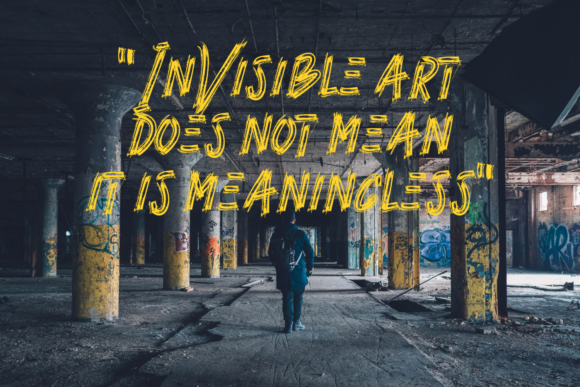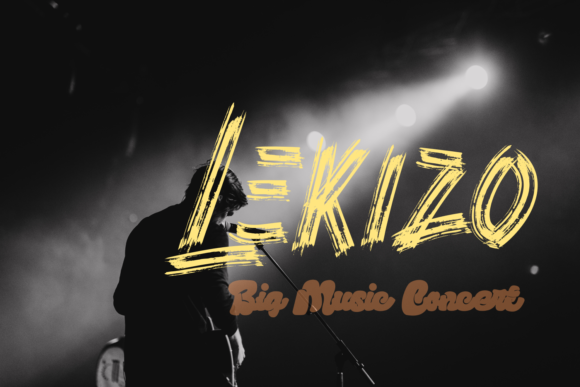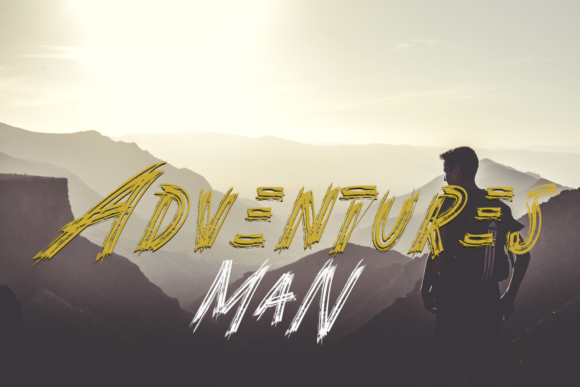
Introduction to Mazdero Font
Do you remember the thrill of finally finding the perfect font for your creative project? It’s that moment when everything falls into place, and your design comes to life. For designers, discovering a high-quality font can be a game-changer, elevating their work from good to great. If you’re looking for a font that will make your urban designs stand out, look no further than the Mazdero Font.
With its rough, textured design and dramatic flair, the Mazdero Font is a design resource that’s sure to impress. Whether you’re working on a free download project or a paid commission, this font is sure to add a touch of sophistication and style to your work. And with its transparent background, it’s easy to integrate into any design.
Key Features of Mazdero Font
- Unique and stylish font with a transparent background, ideal for various design applications.
- Perfect for use in logos, branding materials, and other design elements where a modern and sleek look is required.
Honest Review: Mazdero Font
I recently stumbled upon the Mazdero Font and I must say, it’s a game-changer for any creative project. The font is a free download, making it an excellent design resource for anyone looking to add some flair to their work.
Here are some things that work well about the Mazdero Font:
- High quality: The font is crisp and clean, making it perfect for digital designs.
- Transparent background: This allows for easy layering and customization.
- Unique style: The font has a distinctive look that sets it apart from more generic fonts.
Of course, no font is perfect, and there are a few limitations to consider:
- ⚠️ Limited character set: The font may not include all the characters you need for certain languages or scripts.
- ⚠️ Not suitable for print: The font may not be suitable for print projects due to its digital origins.
Overall, I’m really impressed with the Mazdero Font. It’s a great addition to any designer’s toolkit, and the free download makes it an easy choice for anyone looking to spice up their creative project.
Tips for Getting the Most Out of Mazdero Font
To get the most out of Mazdero Font, use it for headings and titles to create a visually appealing design. You can also experiment with different font sizes and styles to add depth and interest to your design.
Common Use Cases for Mazdero Font
Mazdero Font is ideal for creating graphics, social media posts, and presentations. Its high-quality design and transparent background make it perfect for any creative project where you want to make a lasting impression.
Alternatives to Mazdero Font